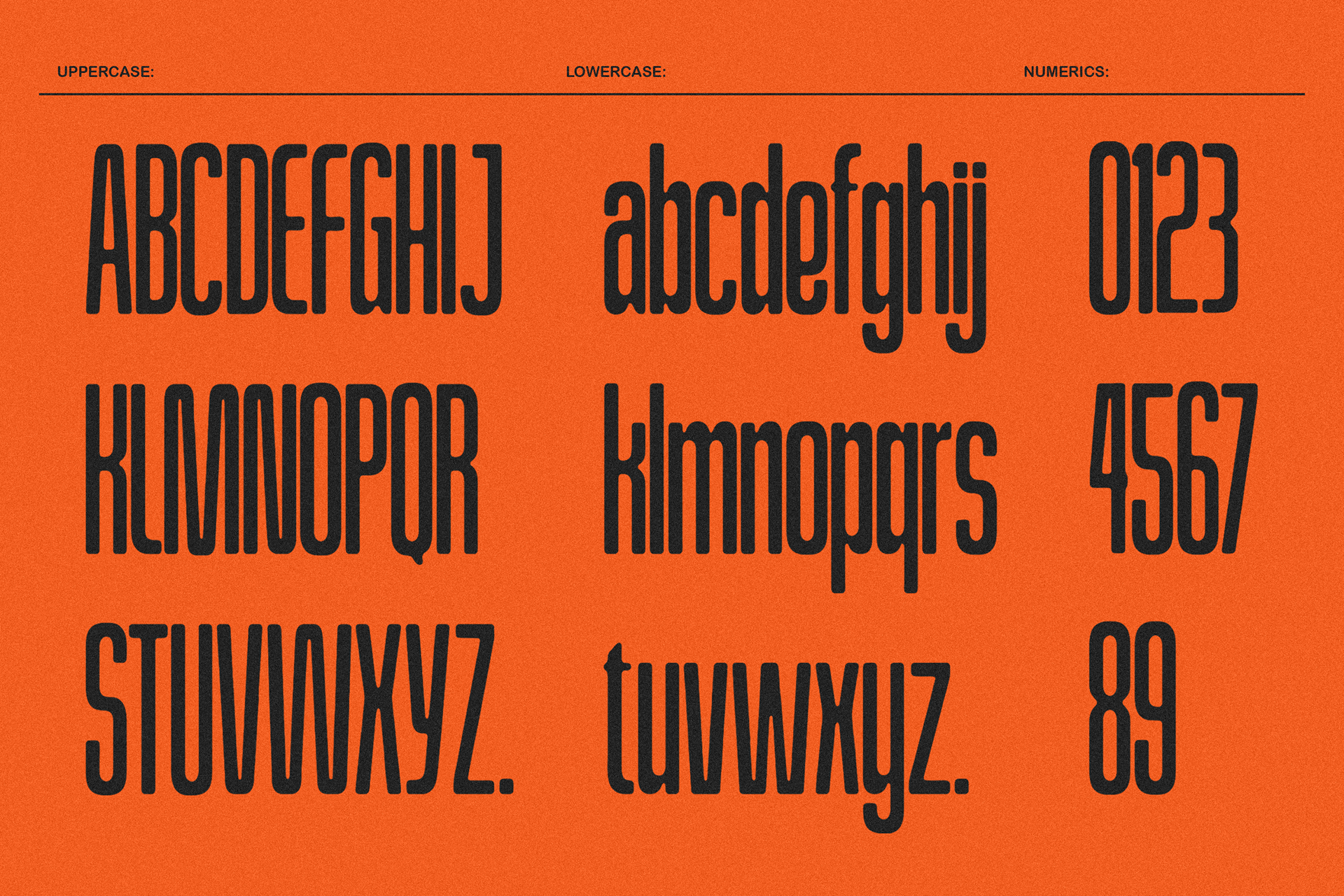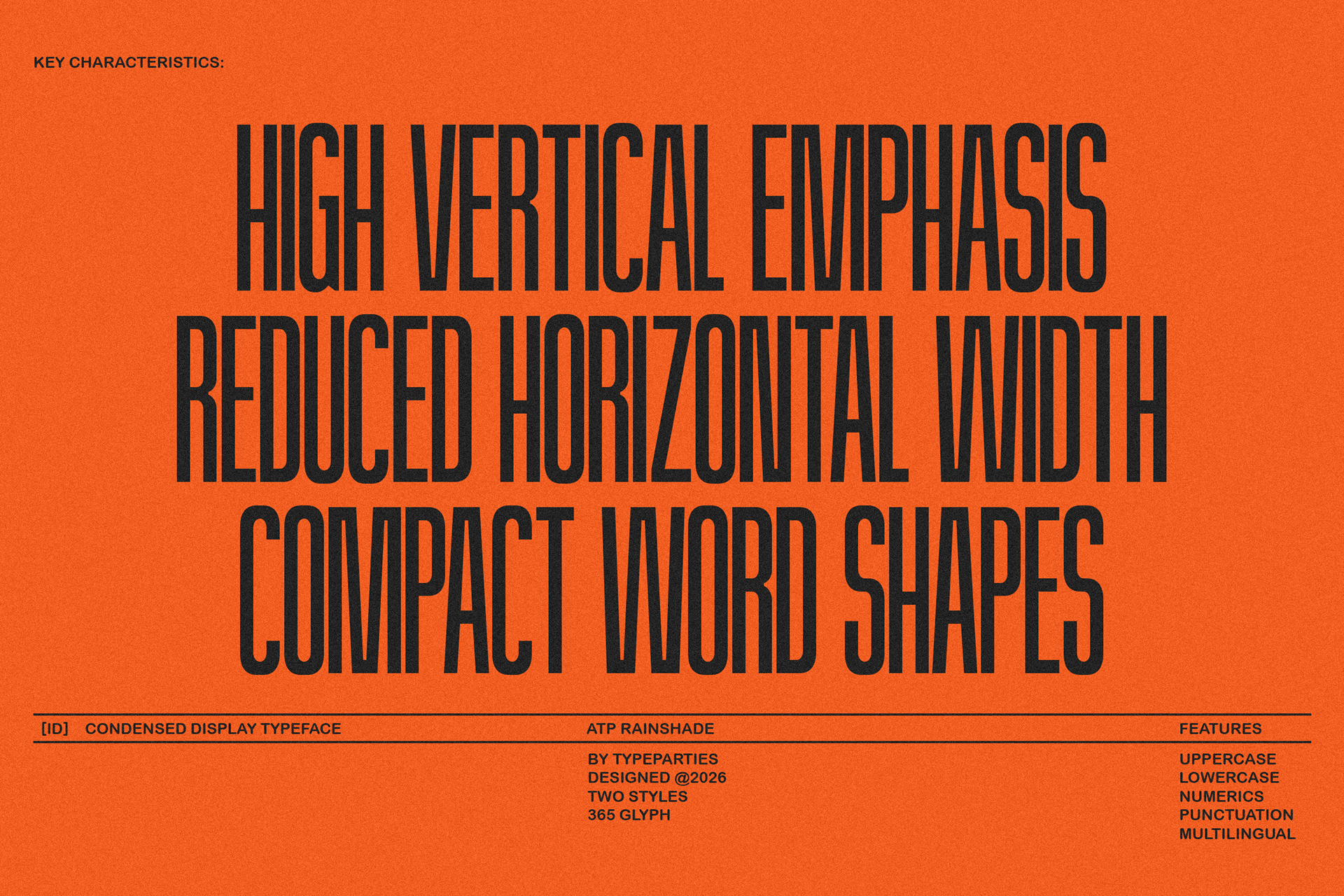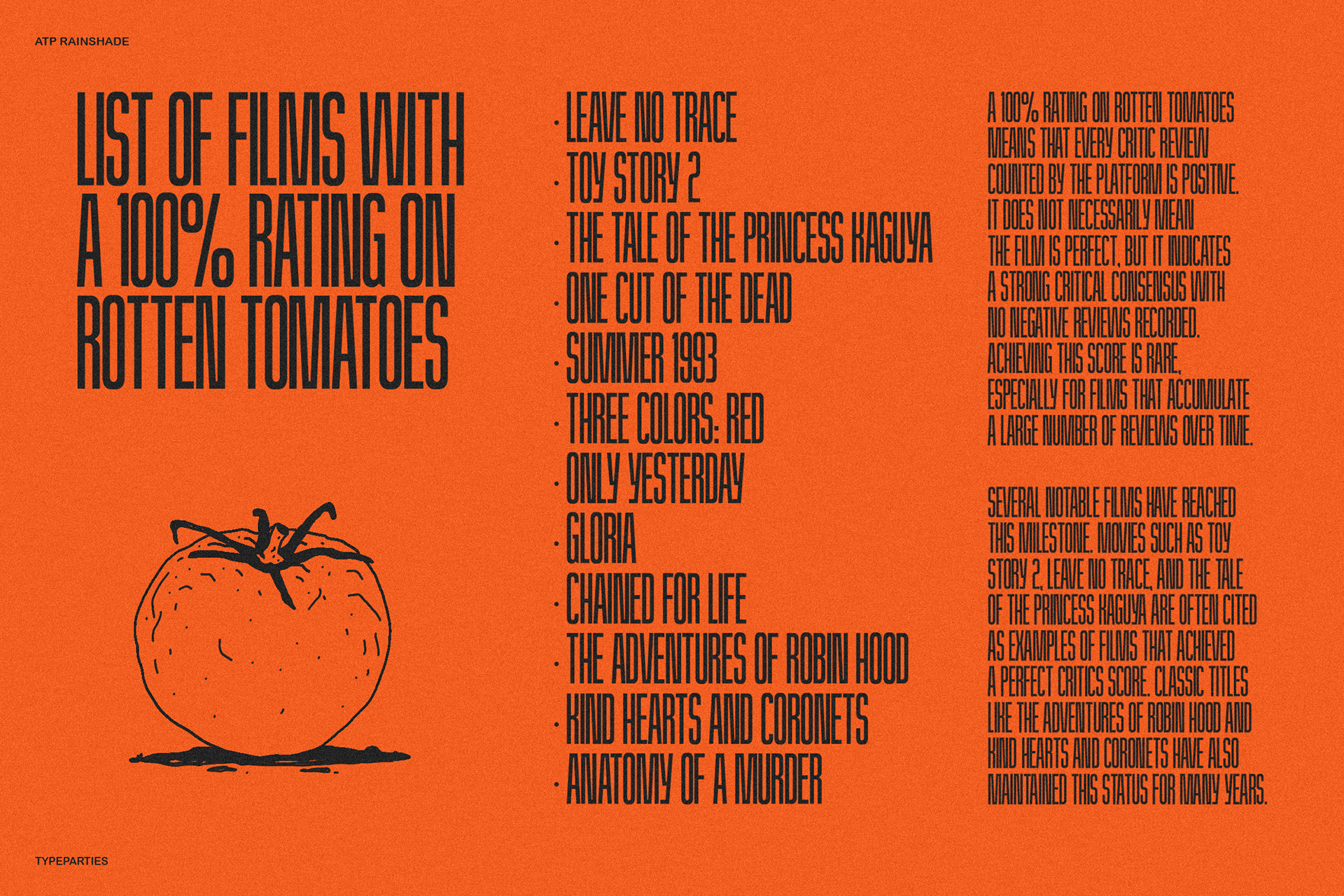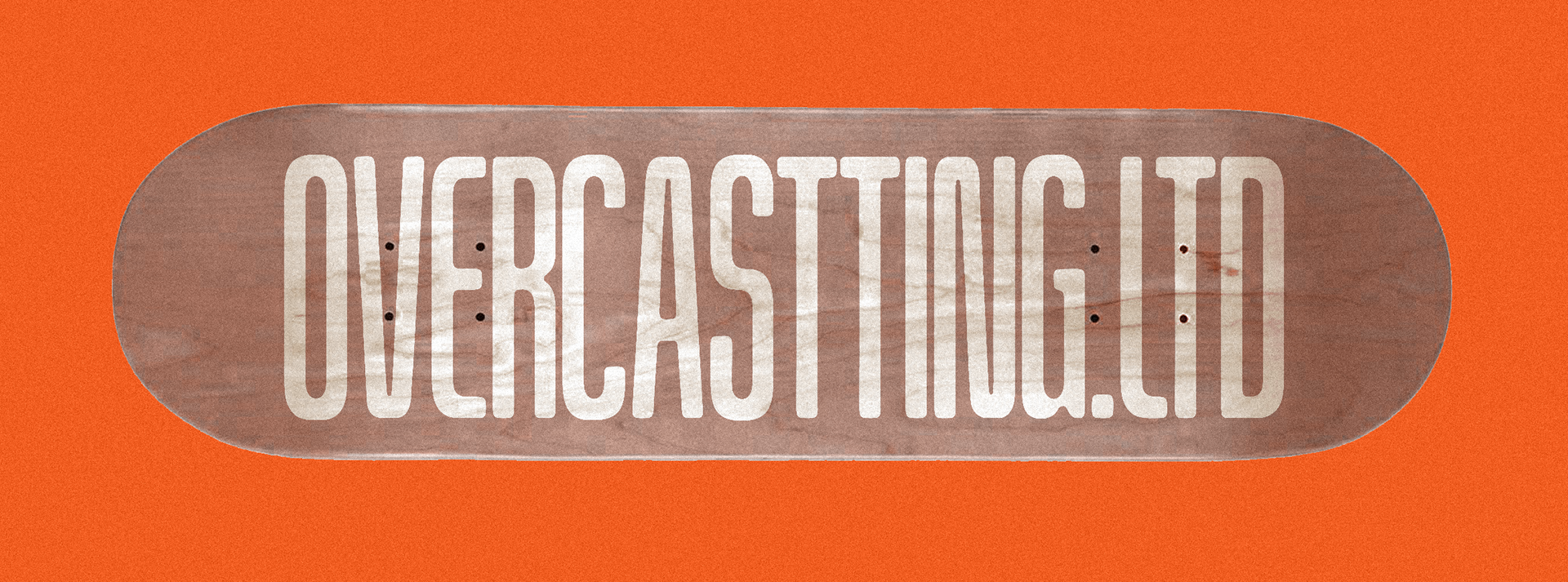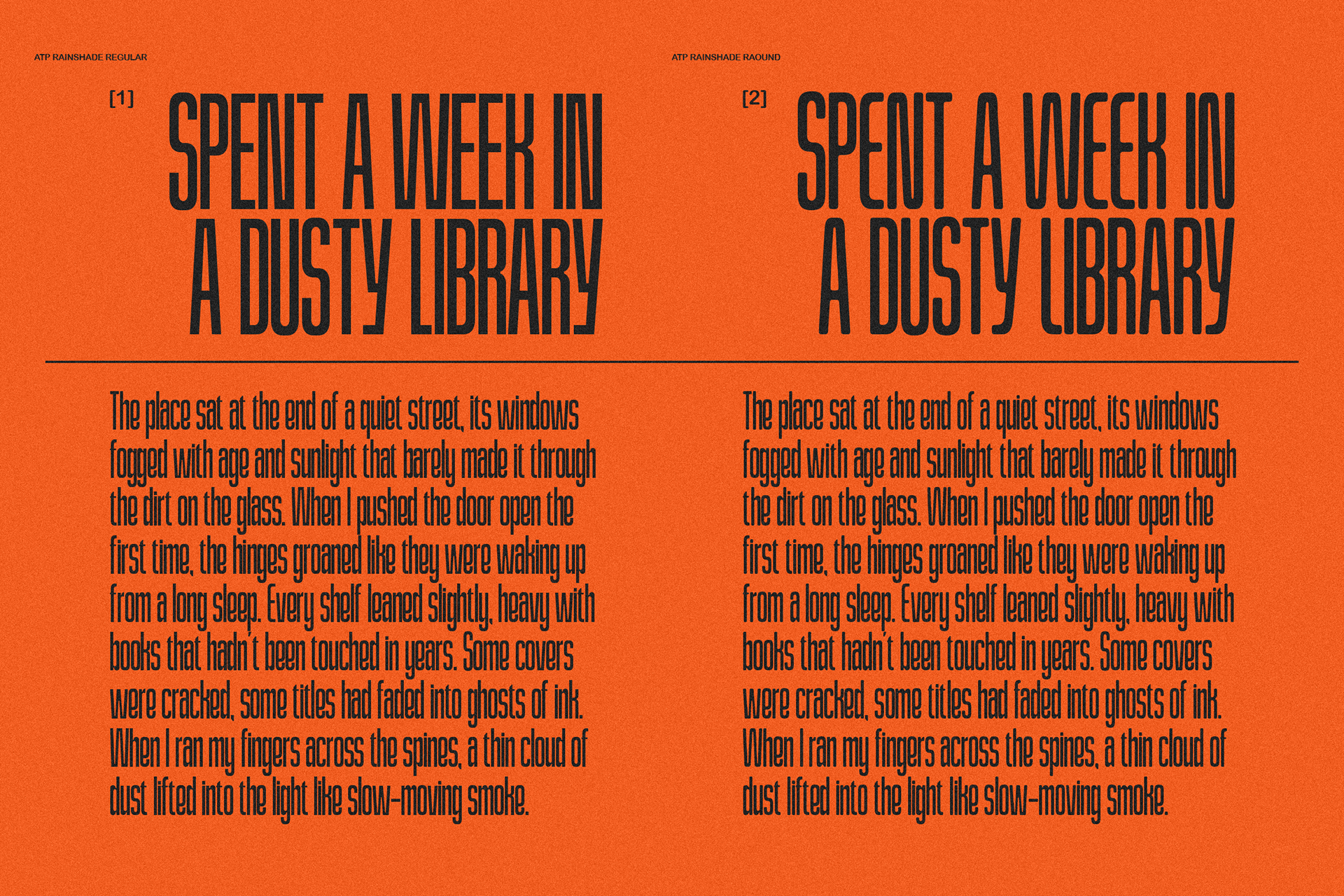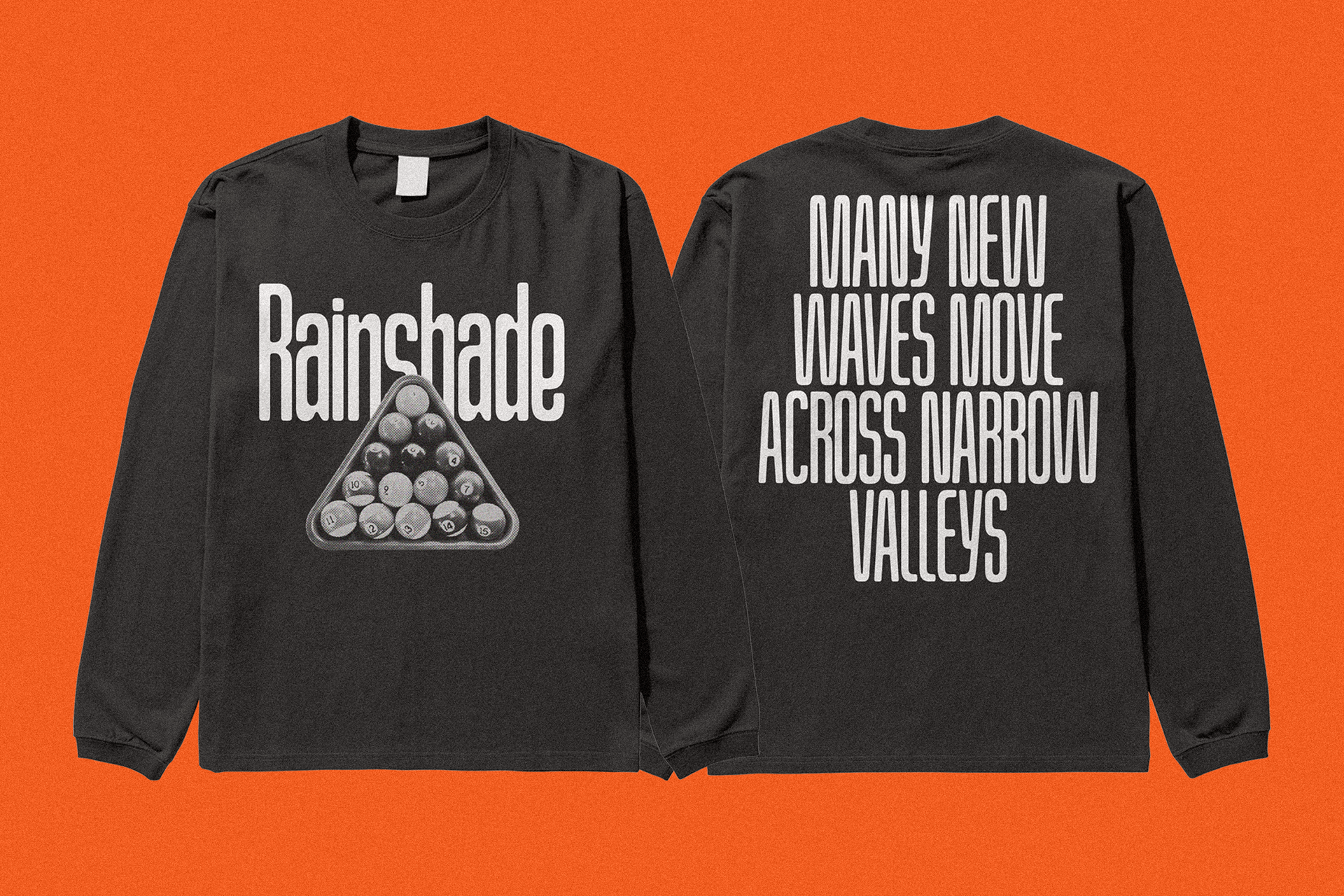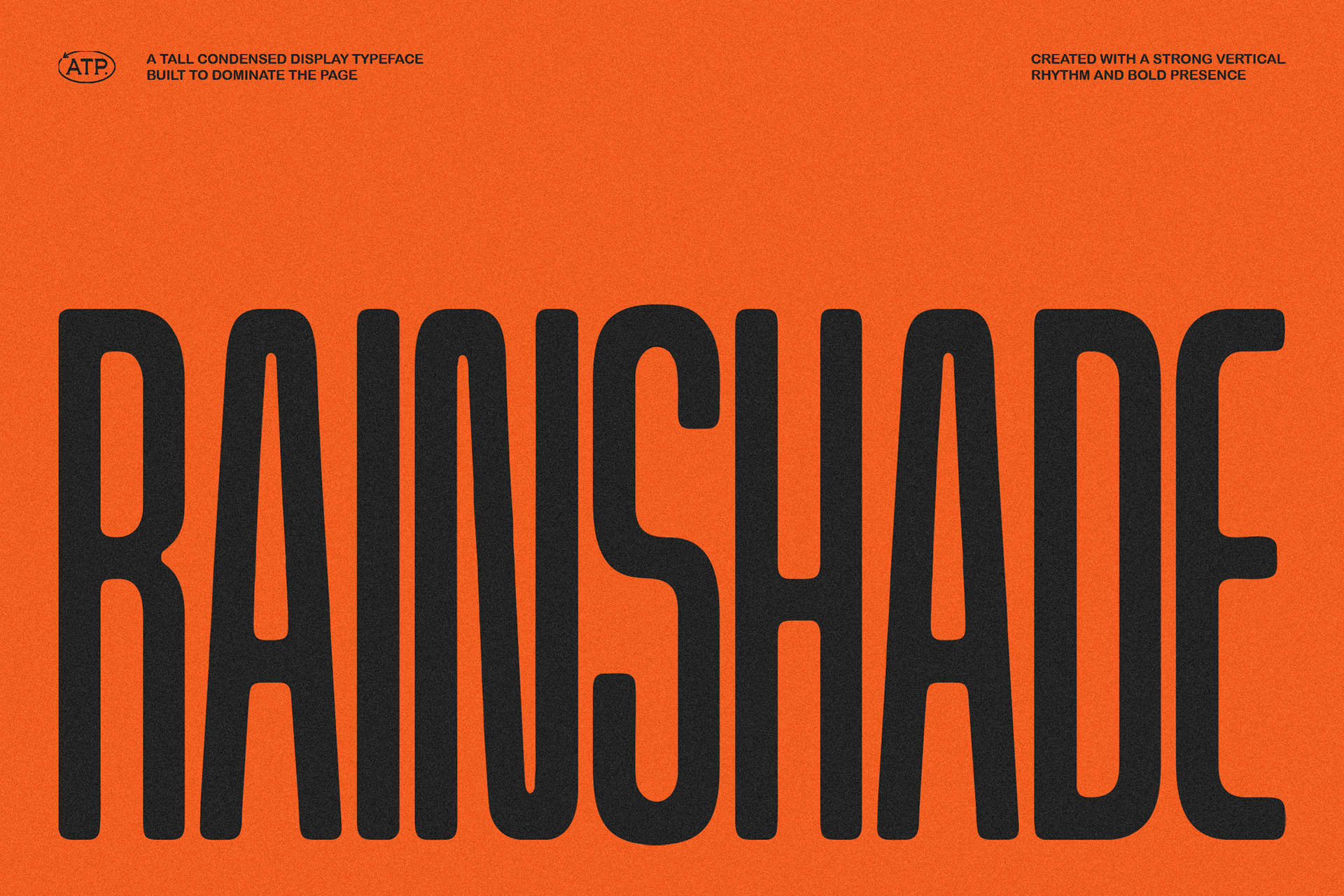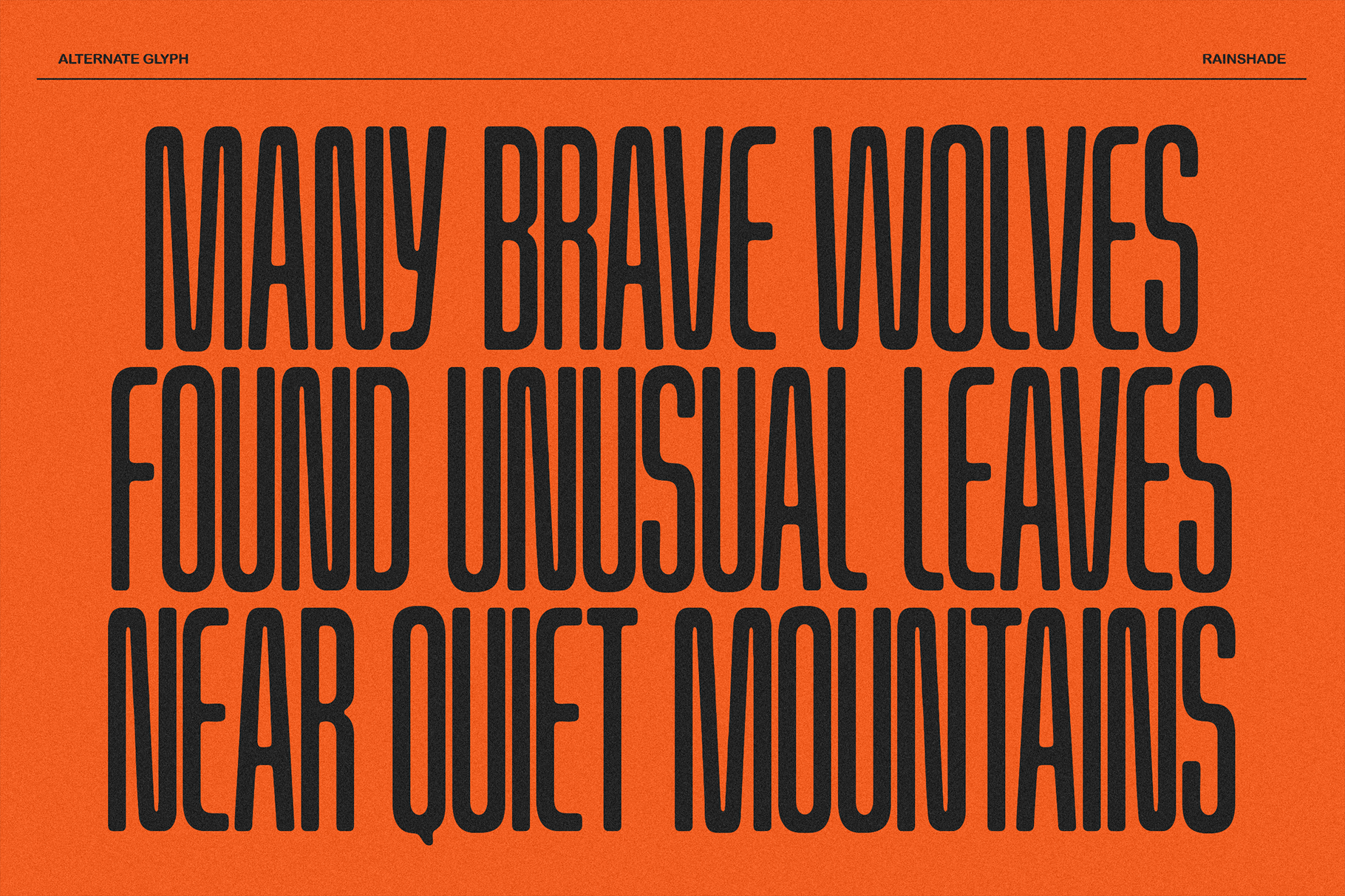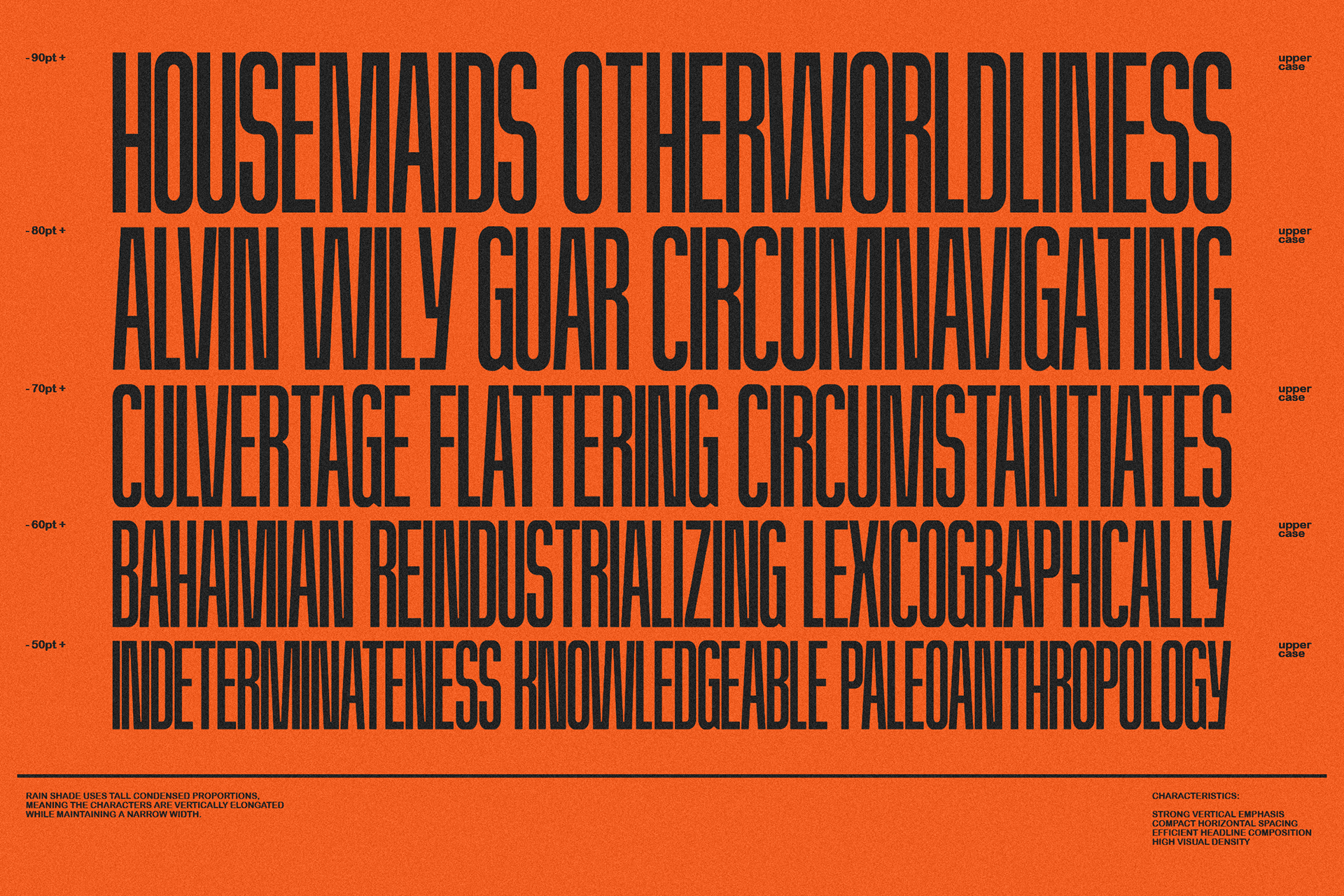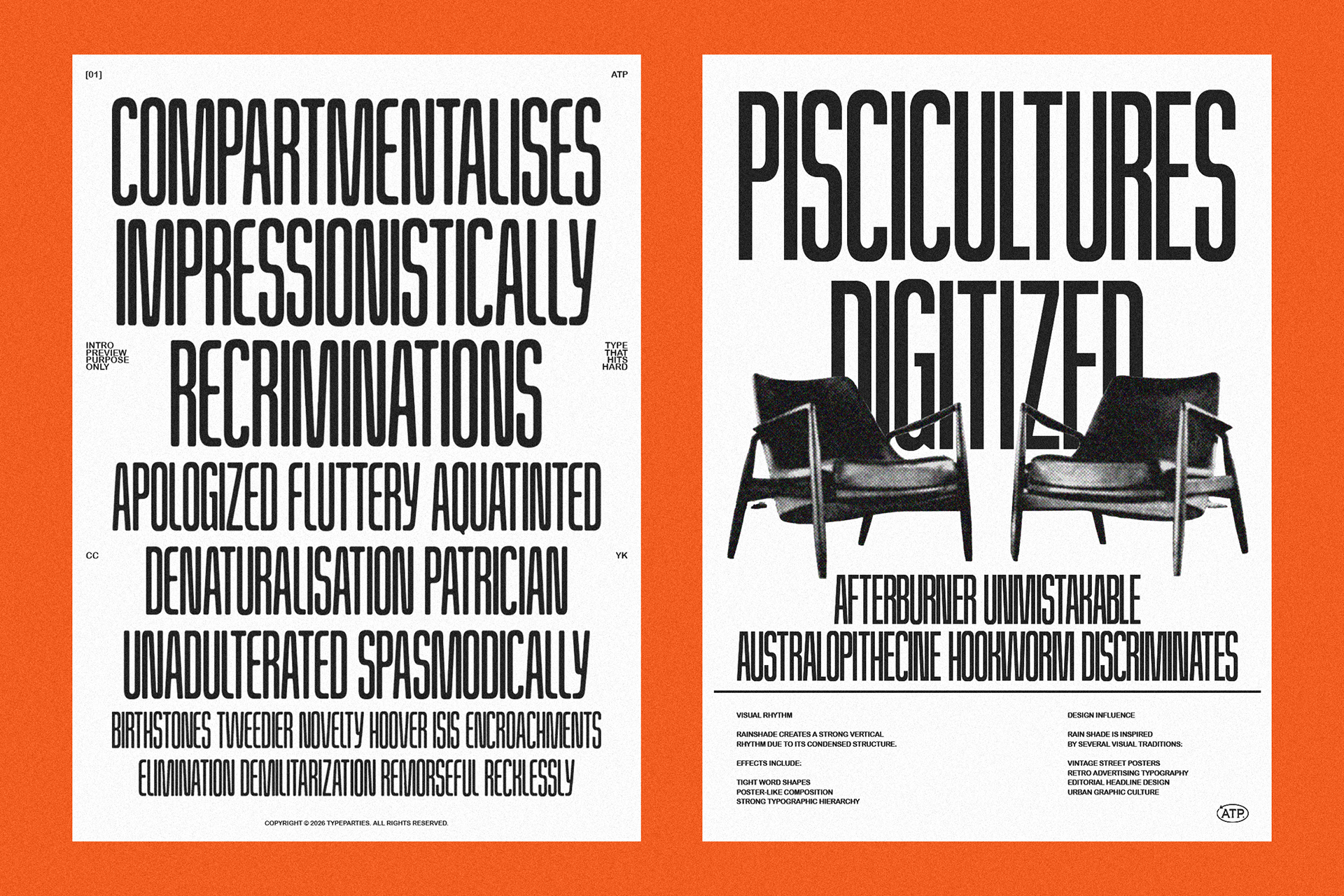
Rainshade -  Condensed Display Typeface
a tall condensed display typeface built to dominate the page. Designed with a strong vertical rhythm and bold presence, this font captures the raw energy of vintage street posters, editorial headlines, and retro advertising typography. Every letter stands tall and confident, creating a visual impact that immediately pulls attention.
Inspired by the spirit of analog print culture, Rain Shade carries subtle irregularities in its strokes that give it a human, organic touch. This slight imperfection adds character and warmth, preventing the type from feeling too mechanical while still maintaining a powerful and structured form. The result is a typeface that feels both nostalgic and contemporary, perfect for designs that want to stand out in a fast-moving visual landscape.
Rain Shade thrives in large formats where its condensed proportions can fully shine. Its narrow structure allows designers to create strong, space-efficient headlines while maintaining bold readability and striking personality.
This typeface is ideal for projects that demand presence and attitude, whether you're designing posters, branding, editorial layouts, packaging, music graphics, or bold social media visuals. Rain Shade turns simple words into powerful visual statements.